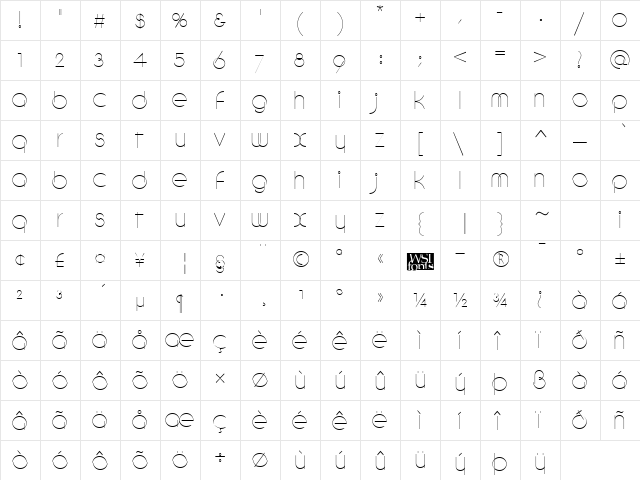
DebevicCircular Regular Font Preview
DebevicCircular Regular
Design Context for DebevicCircular Typeface
DebevicCircular is a composed and adaptable typeface that performs quietly and consistently across a wide range of design contexts.